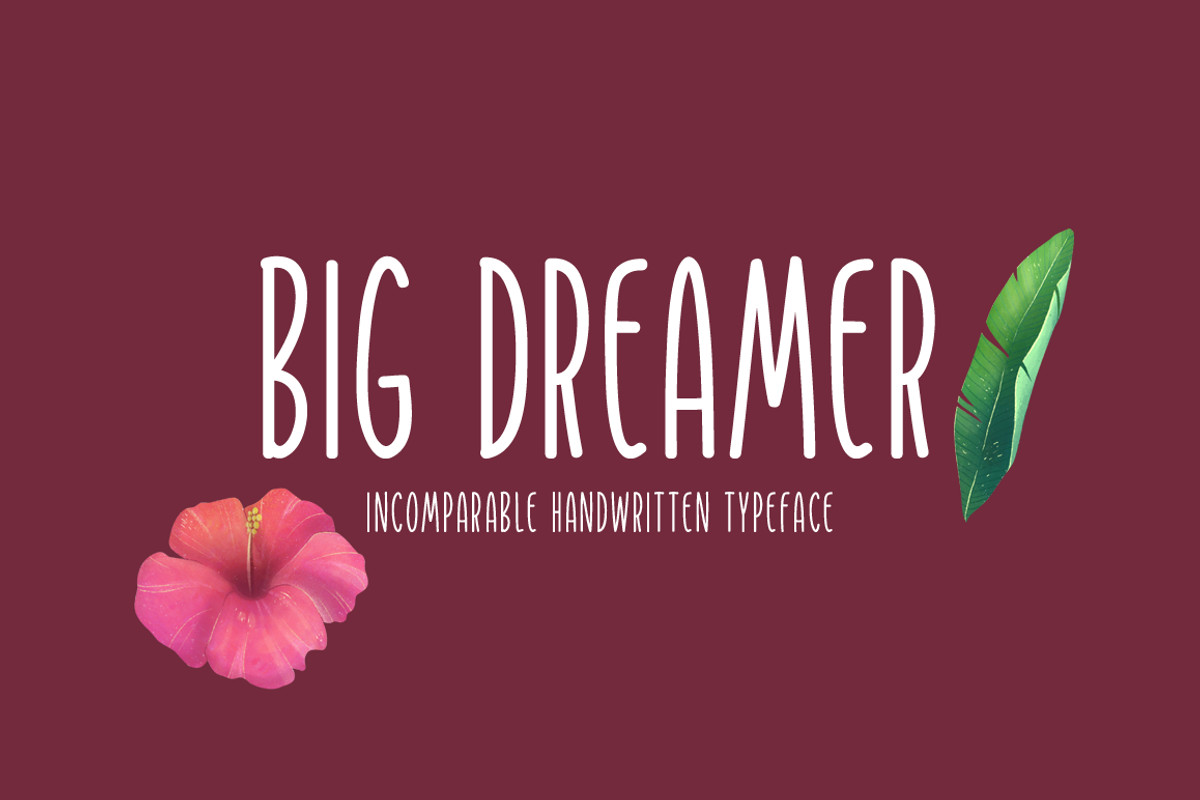
Please note that you must purchase this font for commercial use. You can download Big Dreamer Typeface for free, strictly for personal testing purposes only. Big Dreamer is a bold and modern display font designed to make a statement with its clean lines, stylish proportions, and high-impact design. With its playful yet sophisticated look, Big Dreamer Typeface Free Download is perfect for branding, posters, logos, social media content, and other creative projects that need a striking, attention-grabbing presence.
This font includes uppercase and lowercase letters, numerals, punctuation, and multilingual support, offering versatility for a wide range of design needs. Its modern yet approachable style makes it ideal for both professional and casual projects.
Whether you're designing a chic brand identity or crafting bold visuals, Big Dreamer adds personality and flair to your typography.